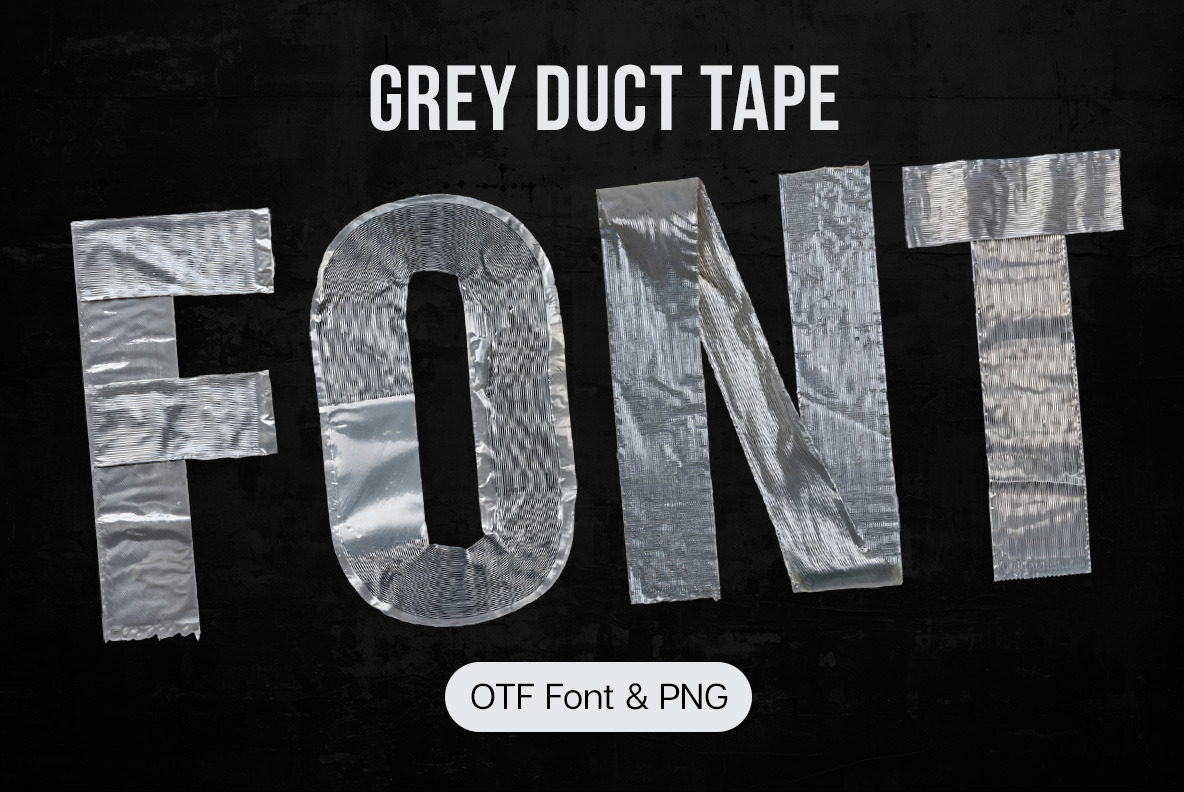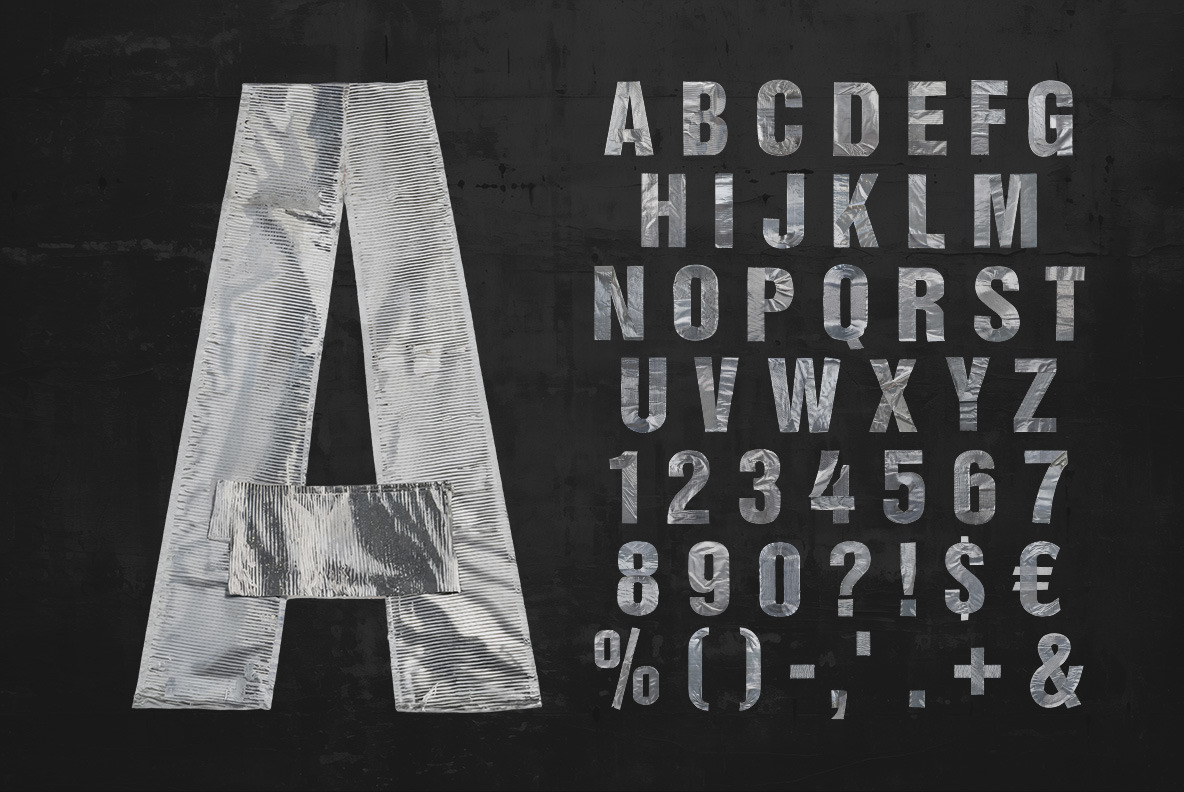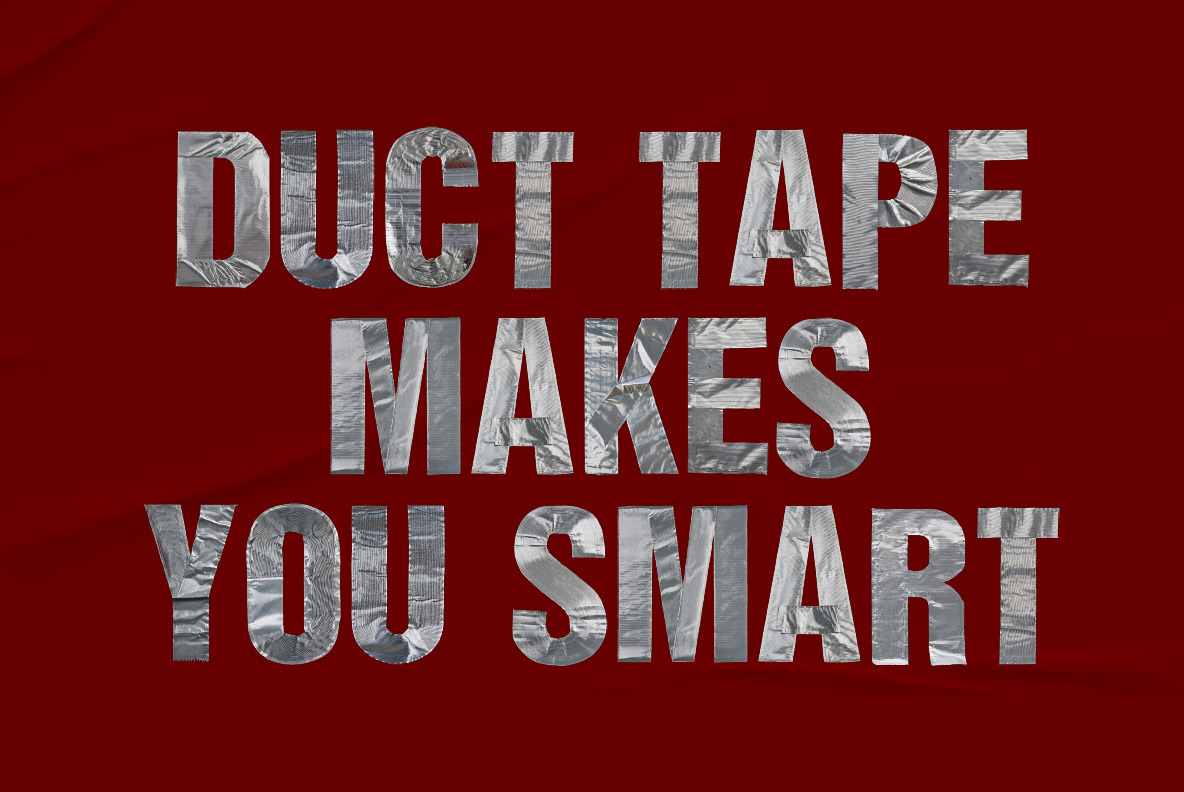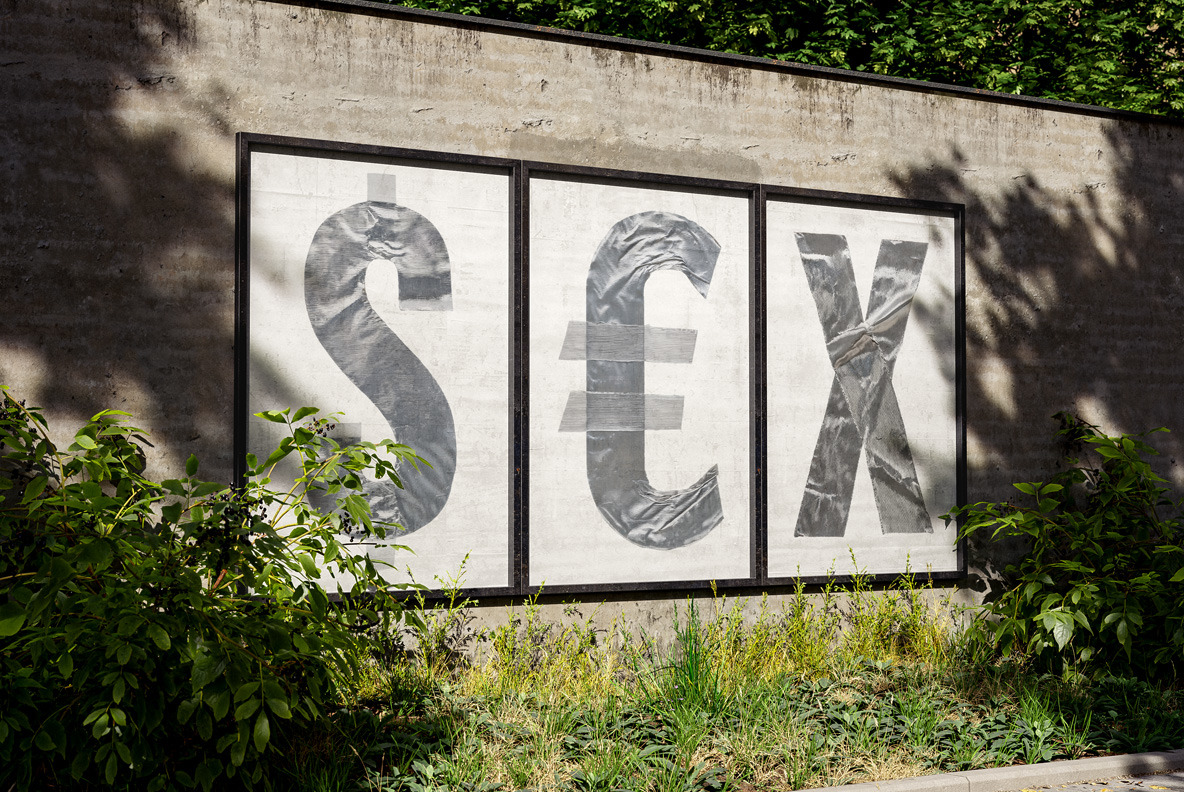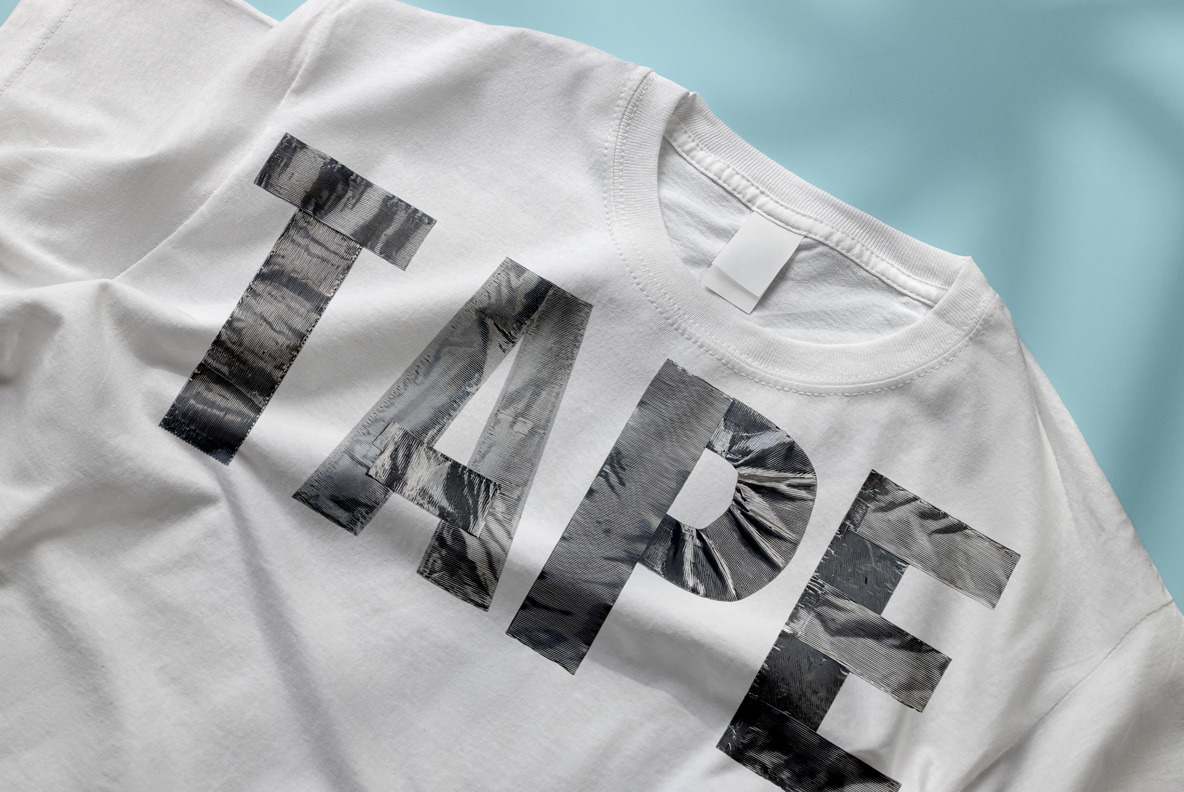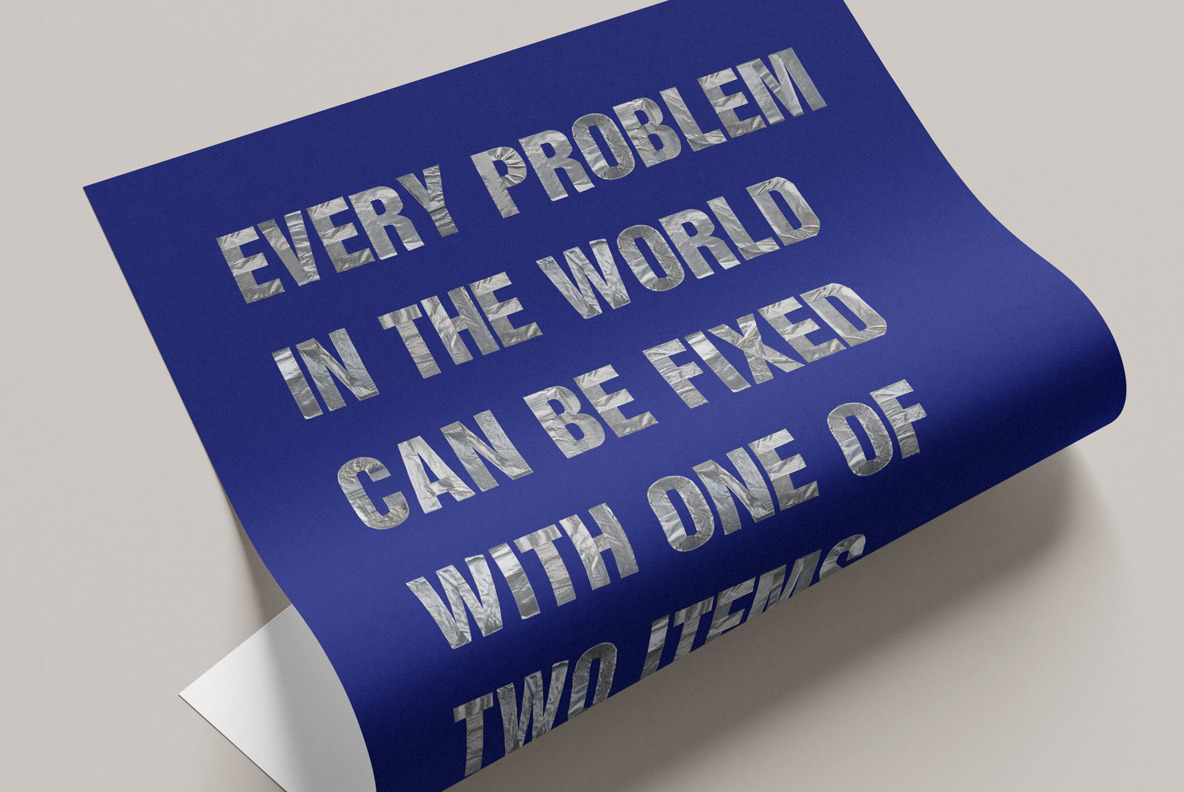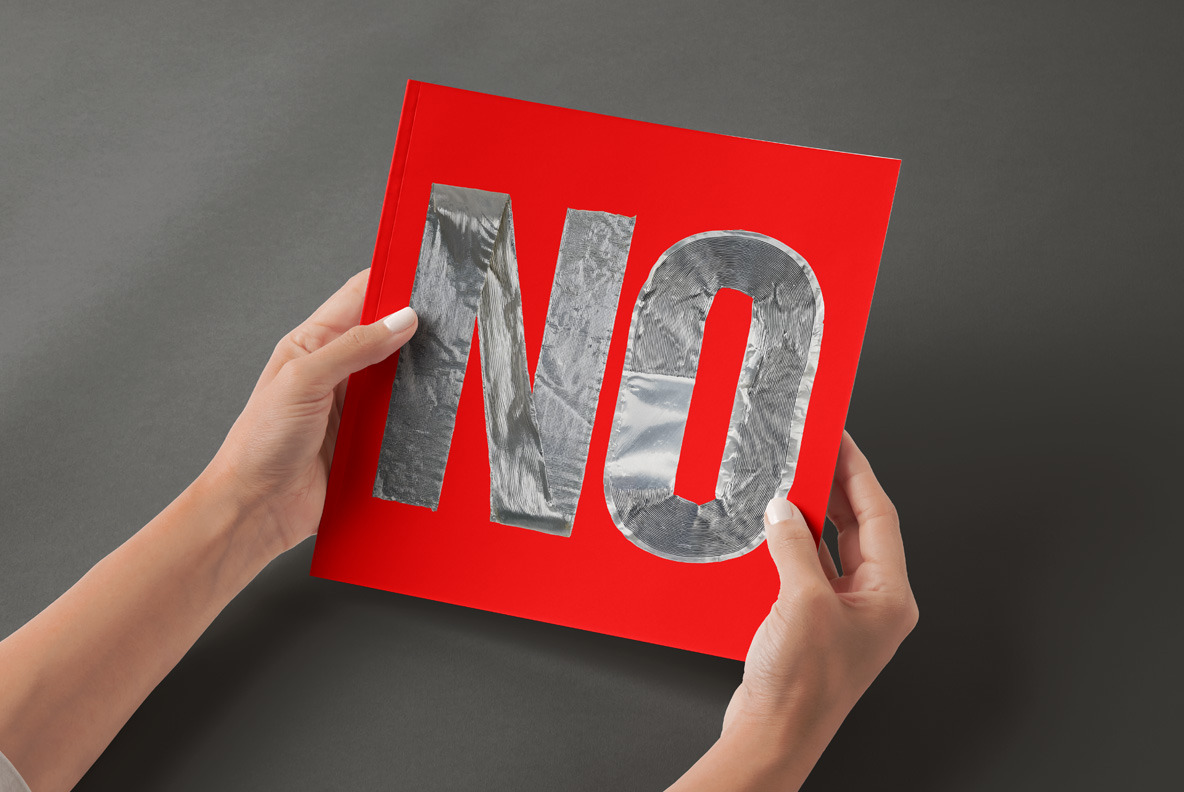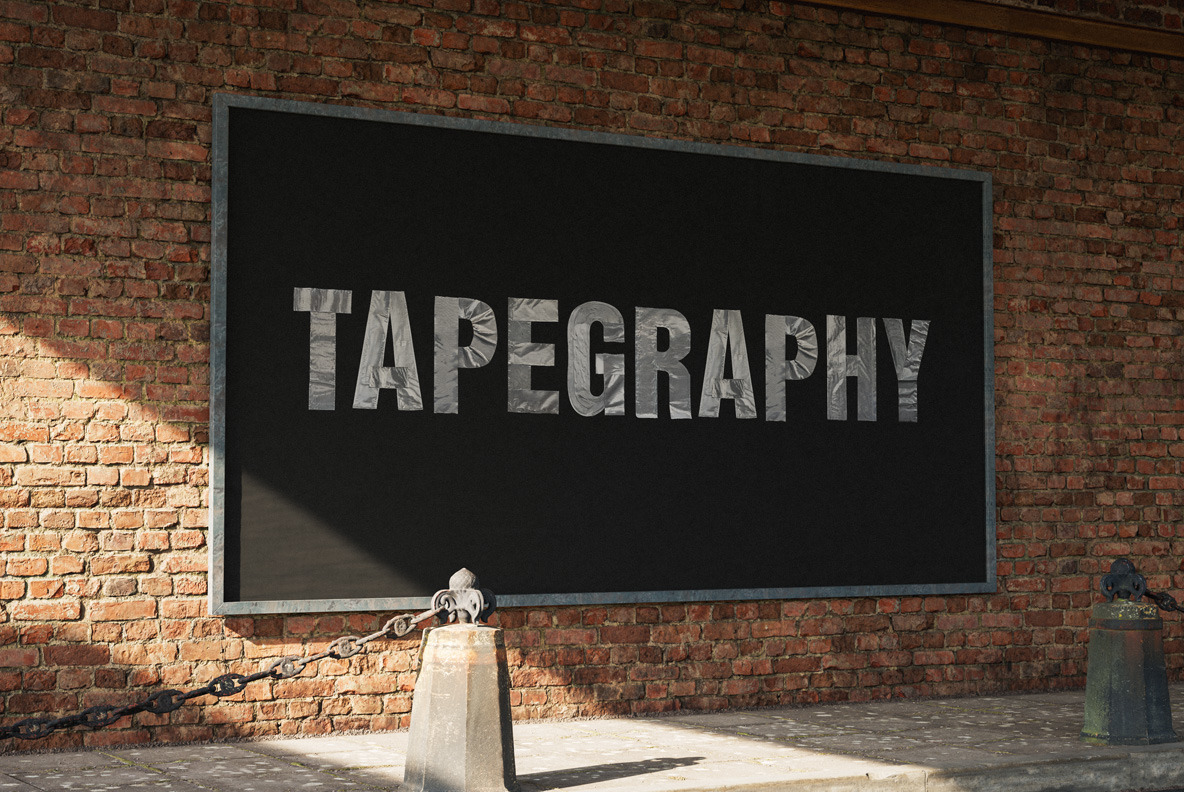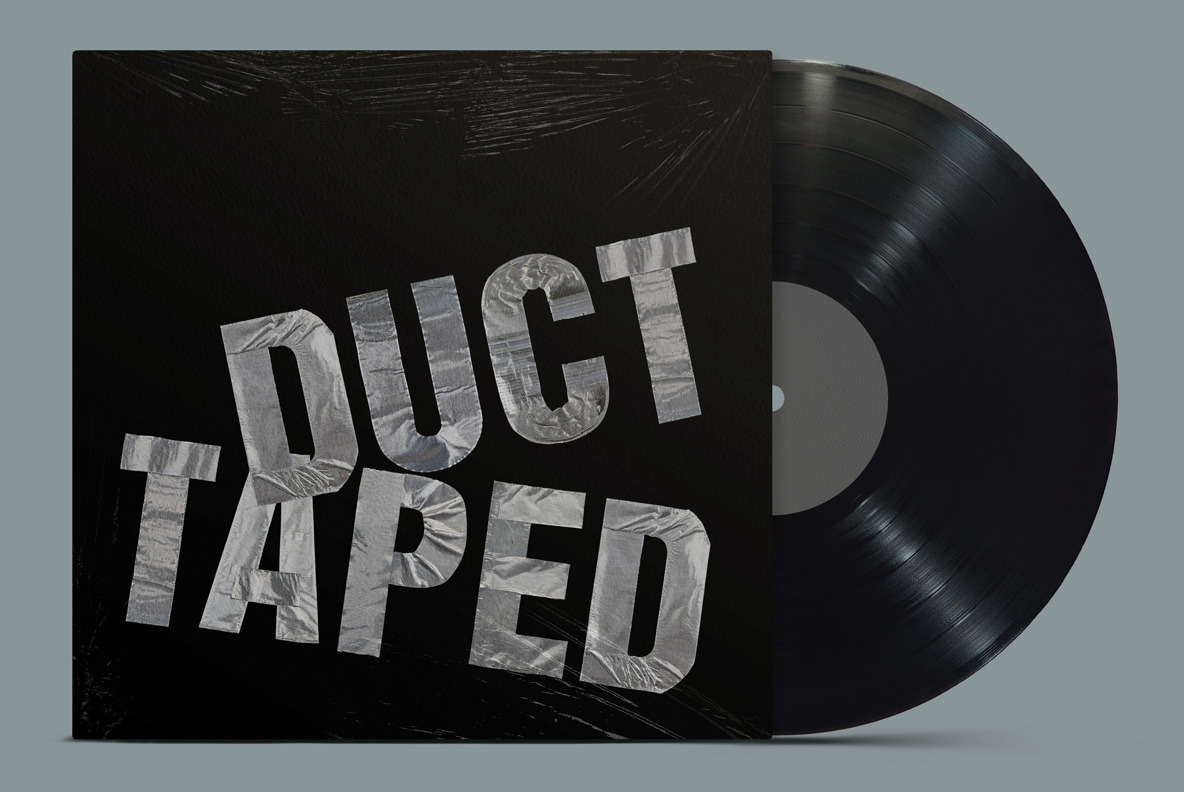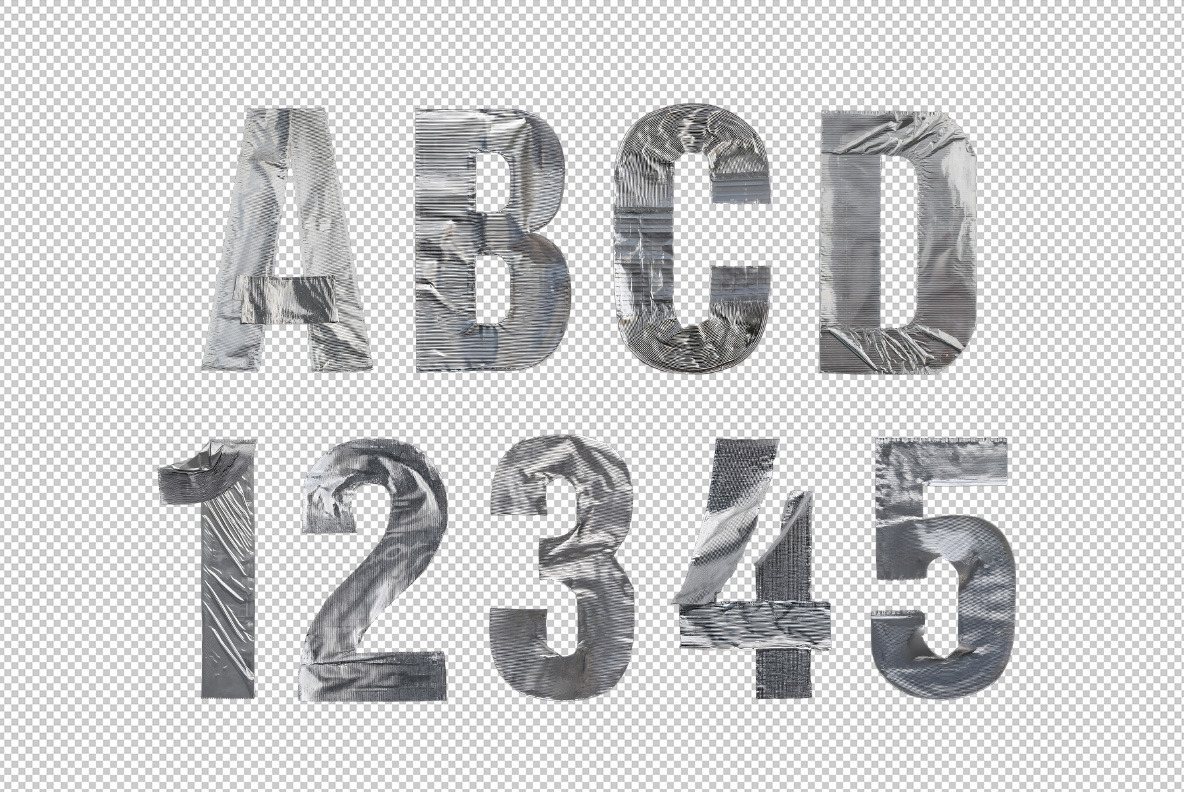
Grey Duct Tape Font
The *Grey Duct Tape Font* is, let’s face it, a cry for help. It’s like someone gave up on life and said, “You know what? Let’s make letters out of duct tape.” It’s functional, yes, but also deeply unsettling. Like typography by someone with unresolved childhood trauma.
Duct Tape Font. A high definition OpenType Font. Contains uppercase characters, numerals and basic punctuation. (Draw height roughly 800 pixels). All letters and glyphs that comprises this font you can see on the preview.